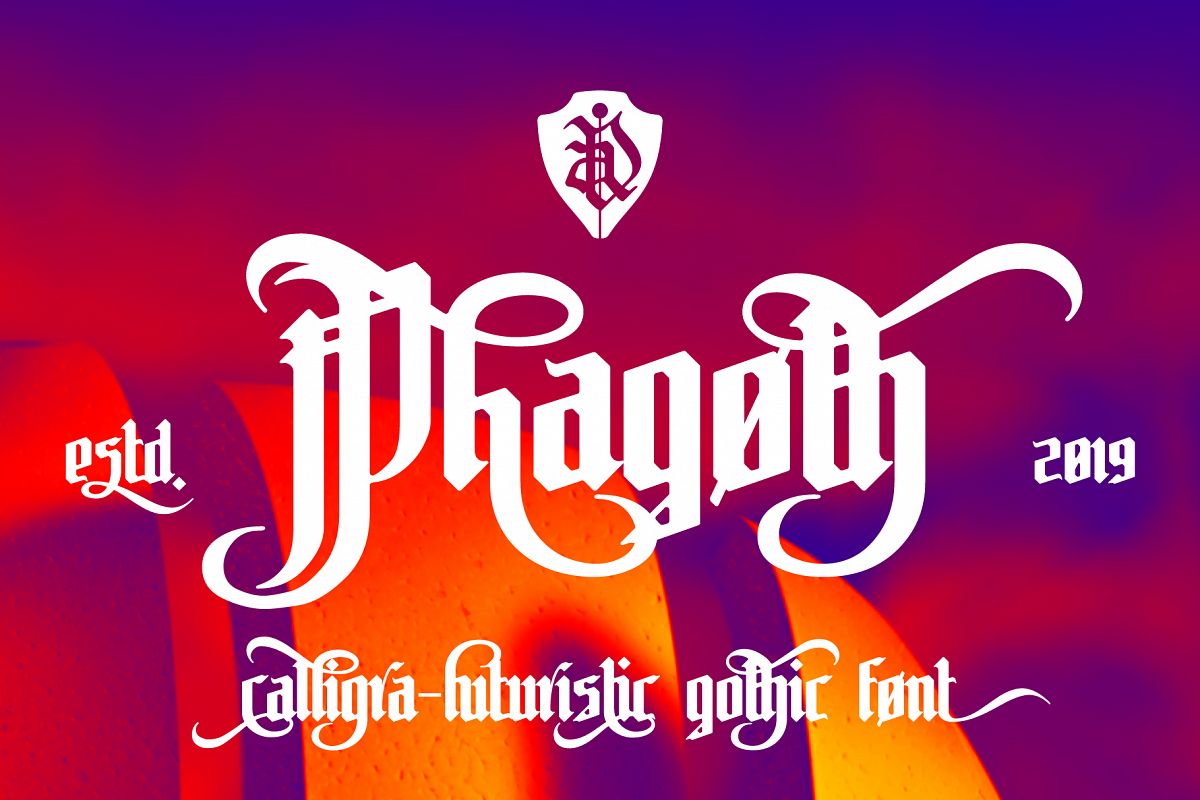
Phagoth
Introducing Phagoth - calligra-futuristic gothic typeface.
Font suitable for simple logo design, website header, wedding, invitations, fashion, menu designs and others.
Good for vintage theme, tattoes etc.
Phagoth has 407 glyphs
- Multilingual support - 27 languages:
Afrikaans, Albanian, Catalan, Croatian, Czech, Danish, Dutch, English, Estonian, Finnish, French, German, Hungarian,
Icelandic, Italian, Latvian, Lithuanian, Norwegian, Polish, Portugese, Romanian, Slovak, Slovenian, Spanisch, Swedish,
Turkish, Zulu
- Stylistic Alternates